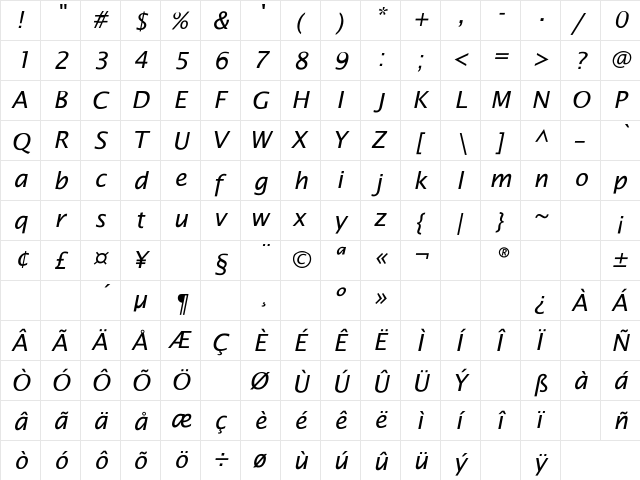
Saintgermain Sans Italic Regular
Design Context for Saintgermain Sans Italic Typeface
Saintgermain Sans Italic is a composed and adaptable typeface that performs quietly and consistently across a wide range of design contexts. Its italic angle brings a sense of urgency and motion to the letterforms.
Pro Tip: Use Saintgermain Sans Italic for emphasis, pull quotes, and subheadings where its slanted energy can add rhythm to the layout.